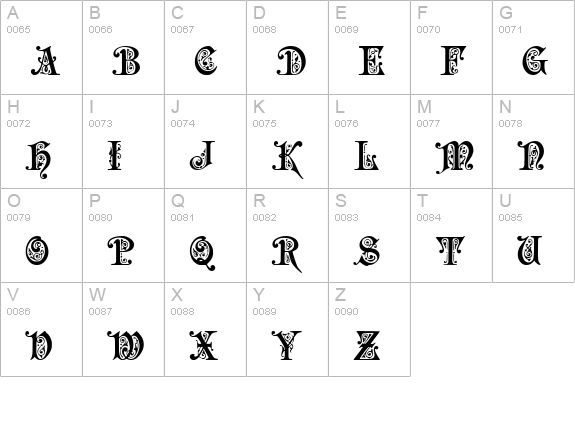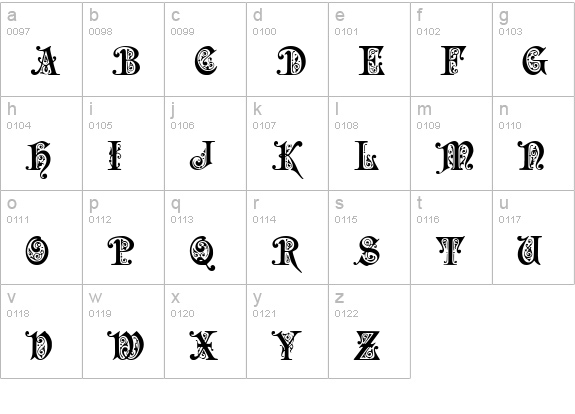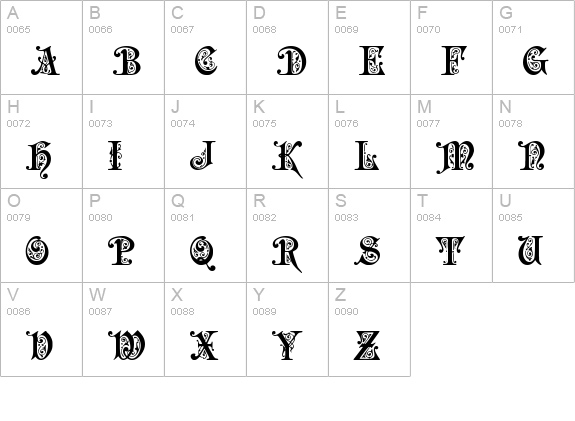
Preciosa Font Details
Preciosa font is a versatile and elegant typeface that exudes sophistication and style. Its timeless design features clean lines and graceful curves, making it perfect for a wide range of design projects. Whether you're creating invitations, branding materials, or editorial layouts, Preciosa font is sure to add a touch of class to your work. The best part? Preciosa font is completely free to download at FontsMarket.com. This means you can access this beautiful typeface without any cost, making it a valuable addition to your font collection. Don't miss out on the opportunity to enhance your designs with the timeless beauty of Preciosa font - download it today and elevate your creative projects to new heights.